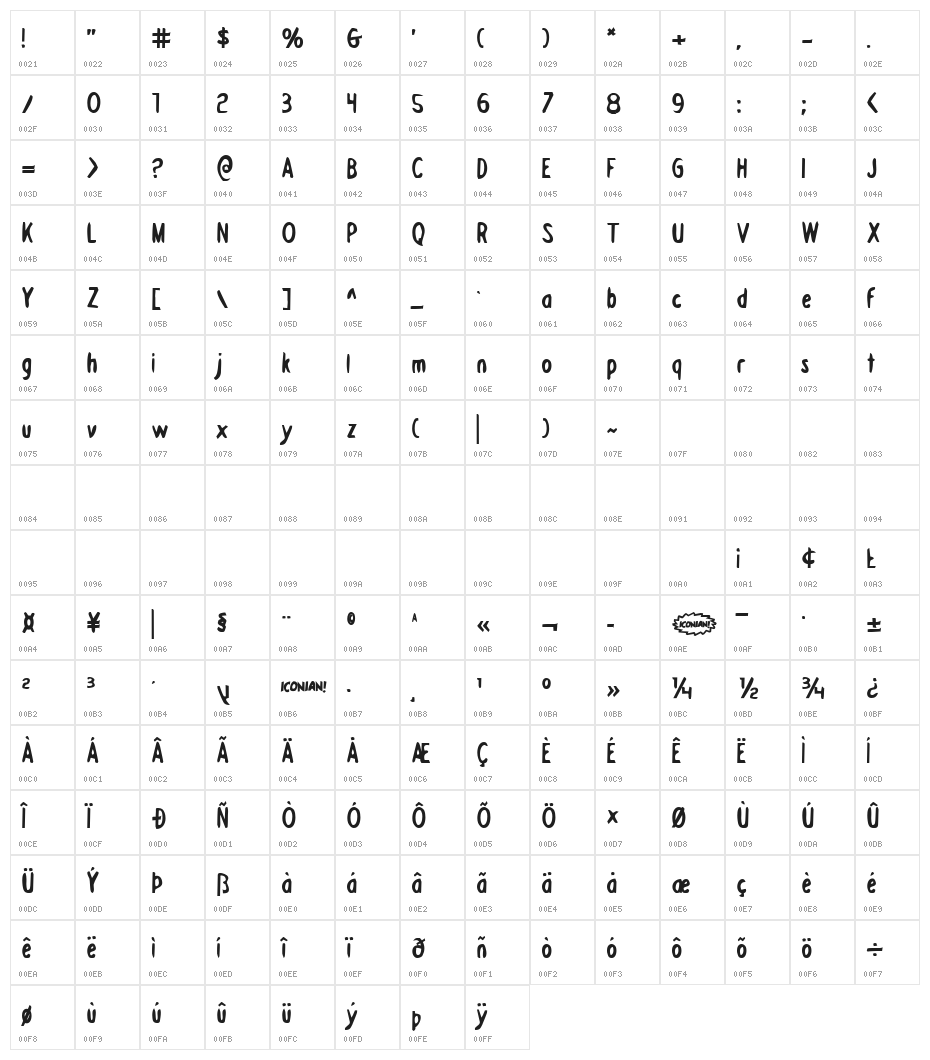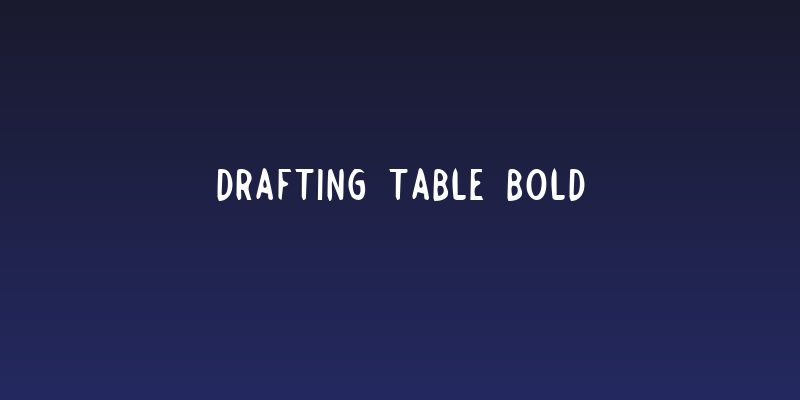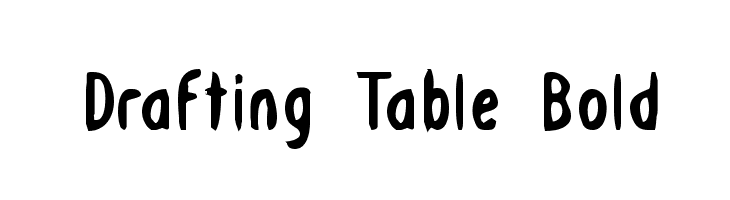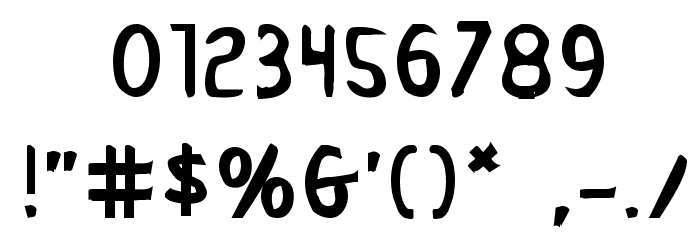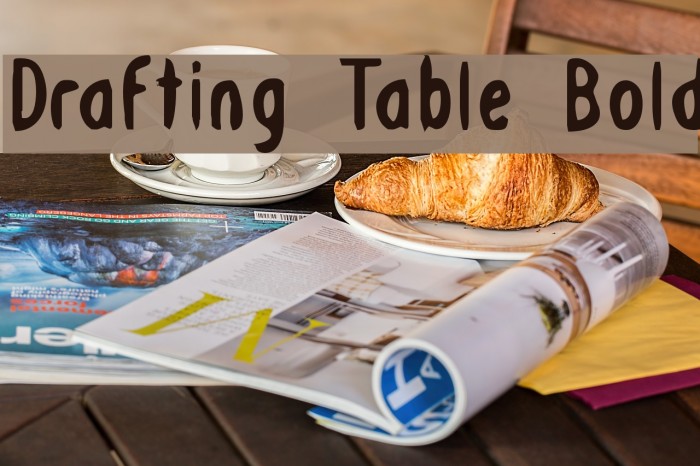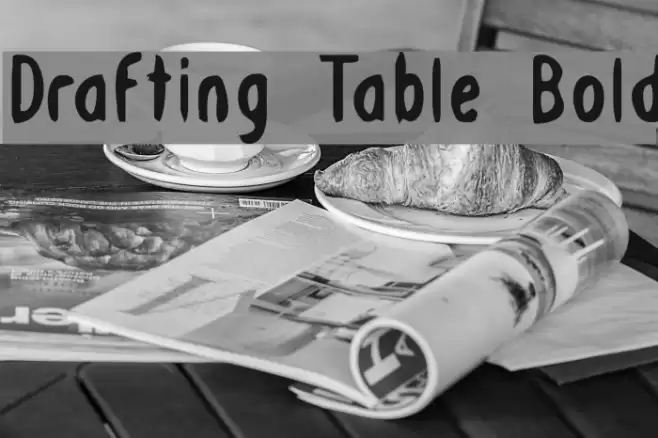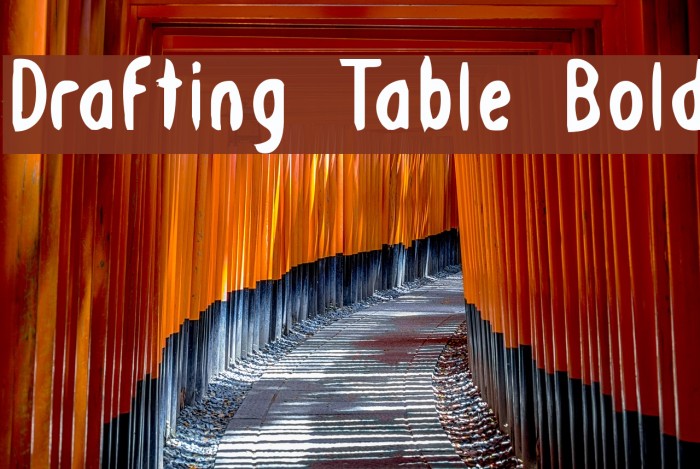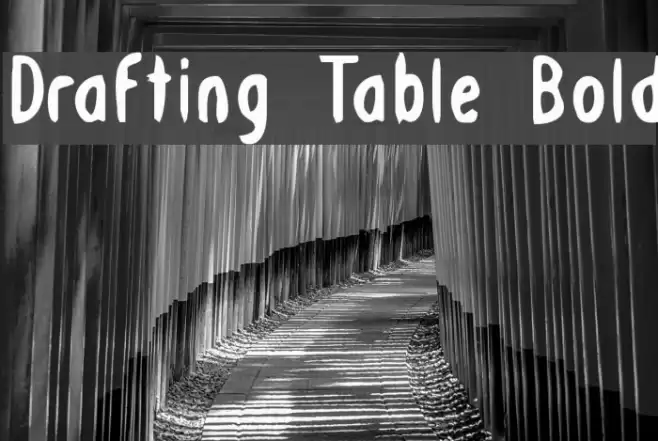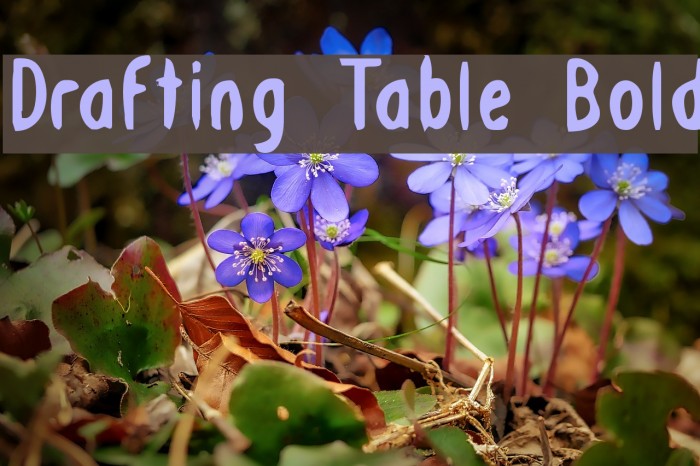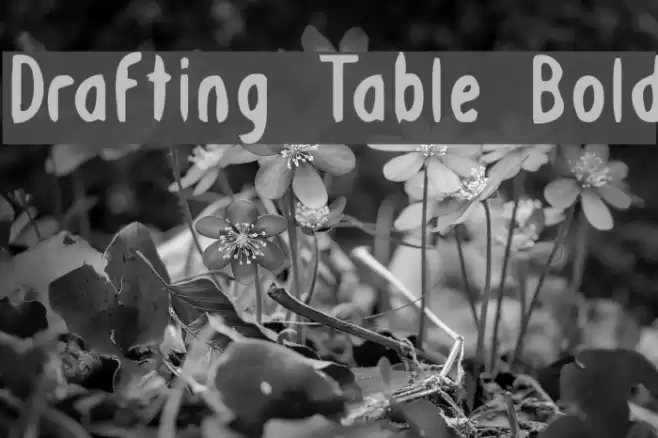
Drafting Table Bold Font
Drafting Table Bold Description
This font features a bold and playful style with a hand-drawn appearance. The characters are slightly irregular, giving it a whimsical and informal feel. The strokes are thick and rounded, contributing to its boldness and making it highly legible. The uppercase and lowercase letters maintain a consistent style, with a slight slant that adds to its dynamic look. The numbers and special characters are designed to match the overall playful aesthetic, making it suitable for creative and informal projects.
| Overall Style | Playful |
| Proposed Projects | Ideal for children's books, playful branding, posters, and creative invitations. |